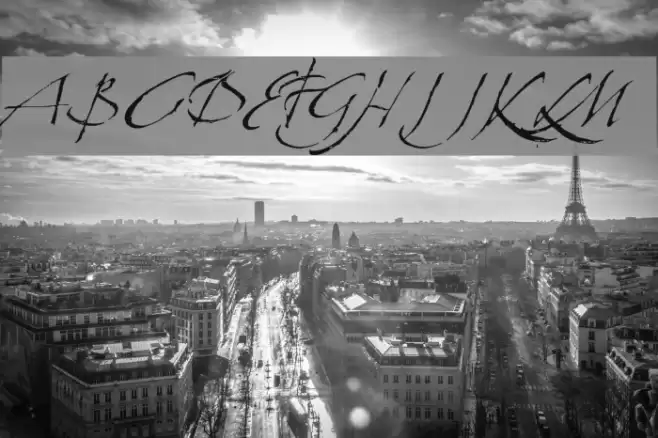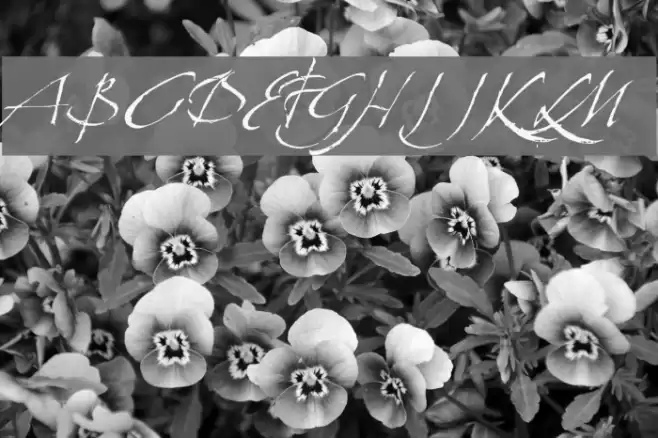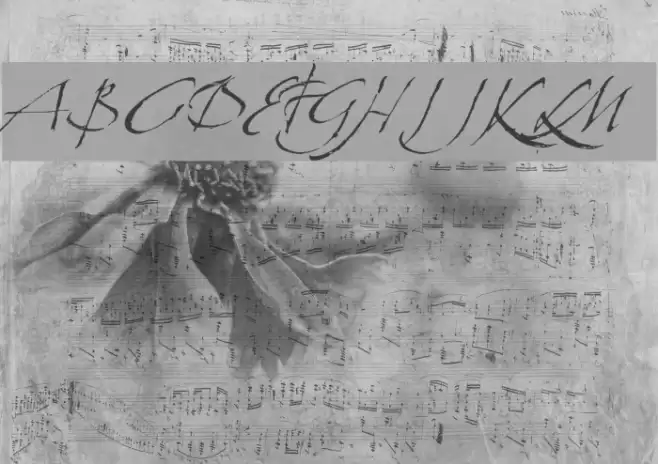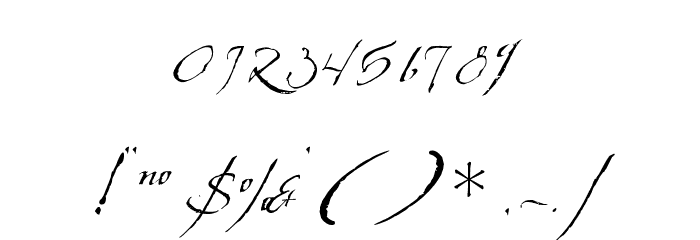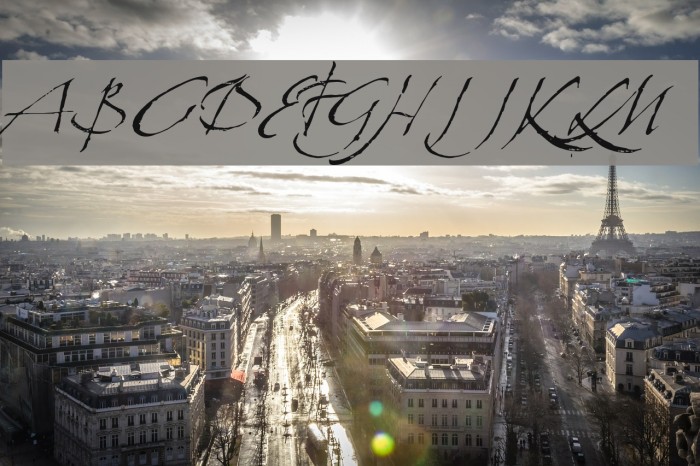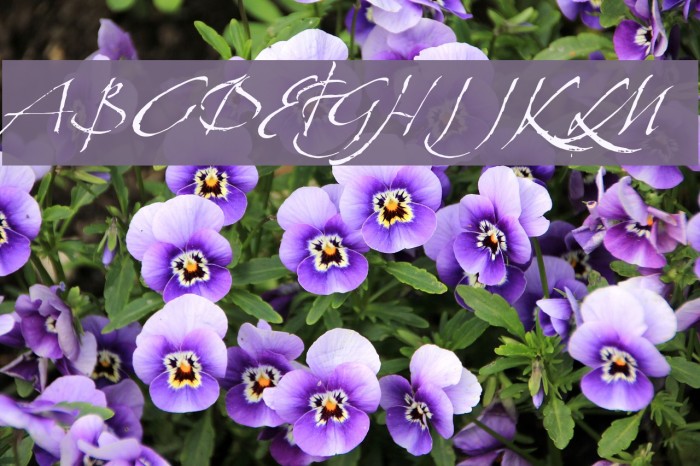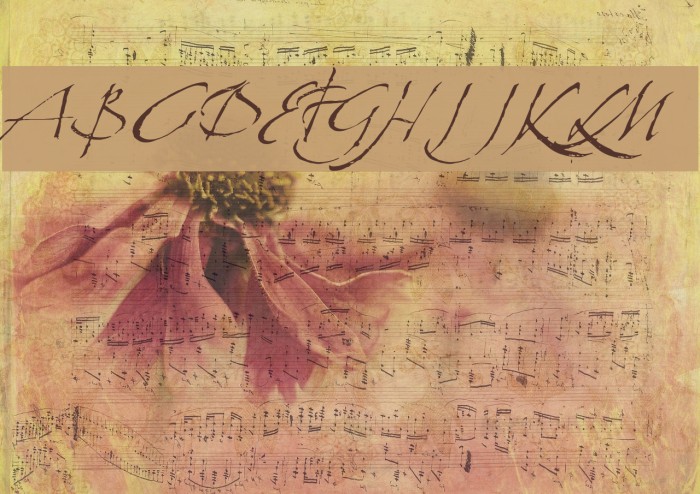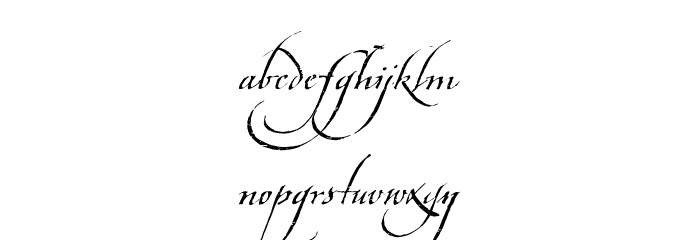
LaFigura Font
LaFigura Description
This font features an elegant and flowing script style, reminiscent of traditional calligraphy. The characters are intricately designed with varying stroke widths, creating a dynamic and artistic appearance. The uppercase letters exhibit a graceful and sophisticated flair, while the lowercase letters maintain a consistent fluidity. The numbers and special characters are crafted with the same attention to detail, ensuring a cohesive look throughout. The overall design is both decorative and functional, making it suitable for a variety of creative applications.
An elegant, calligraphic script font with flowing, artistic strokes from Uncategorized fonts.